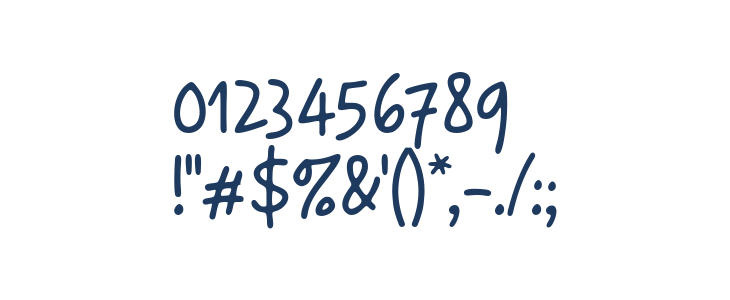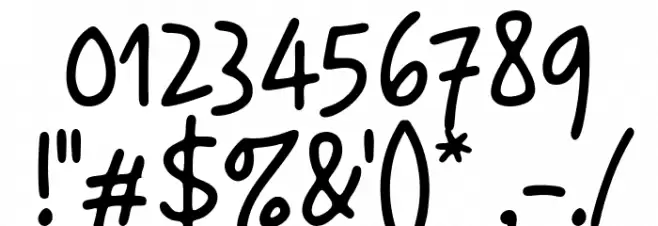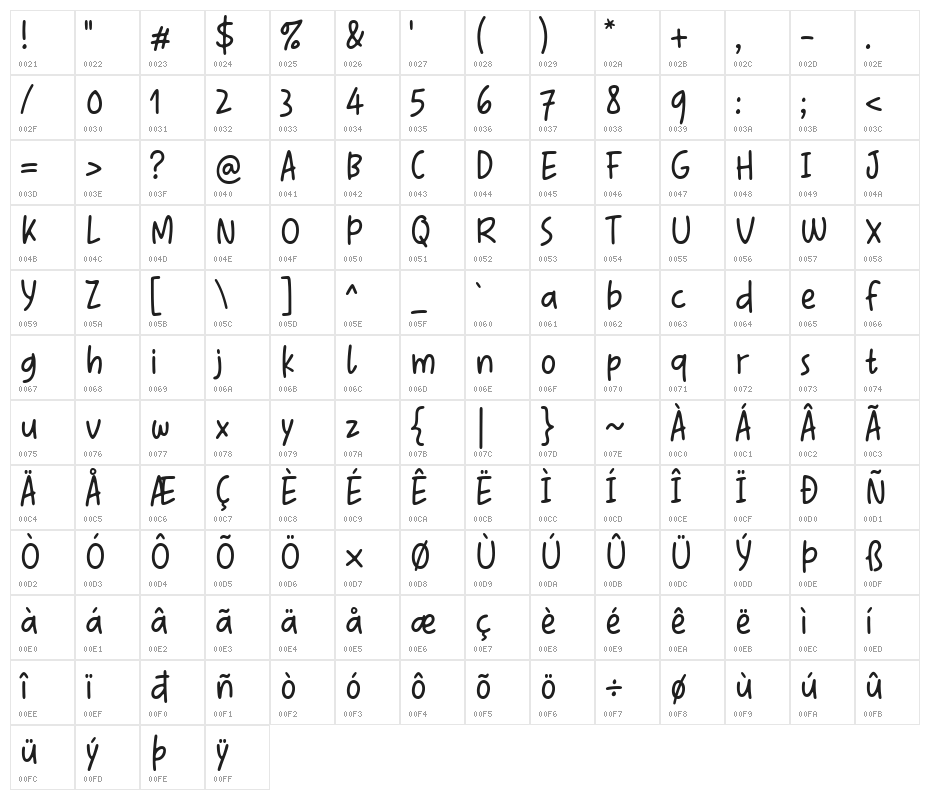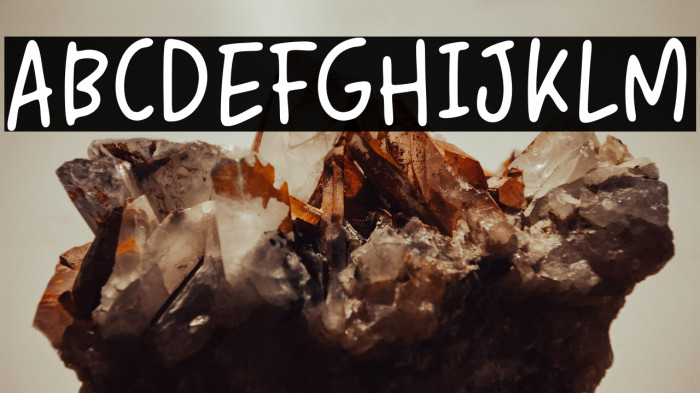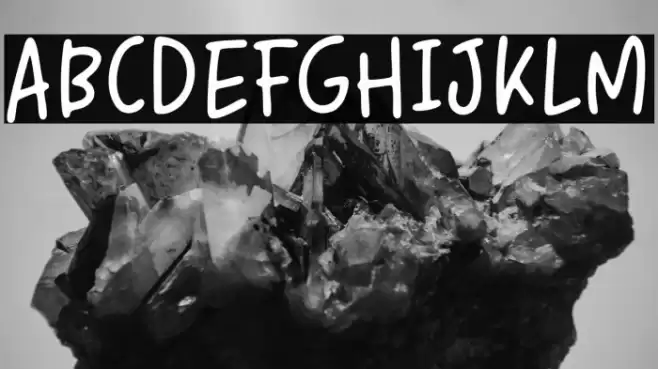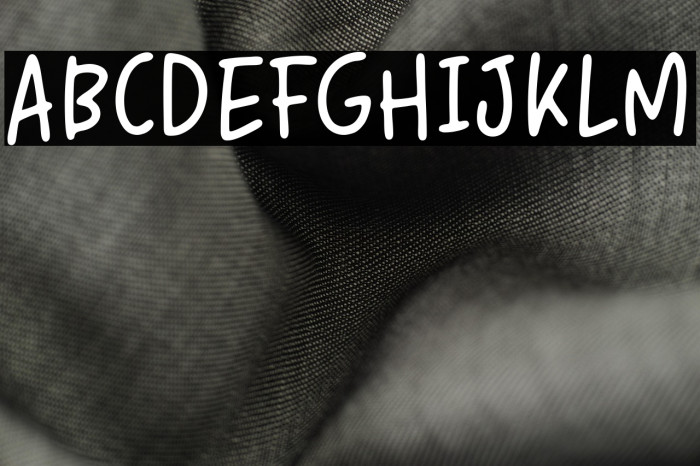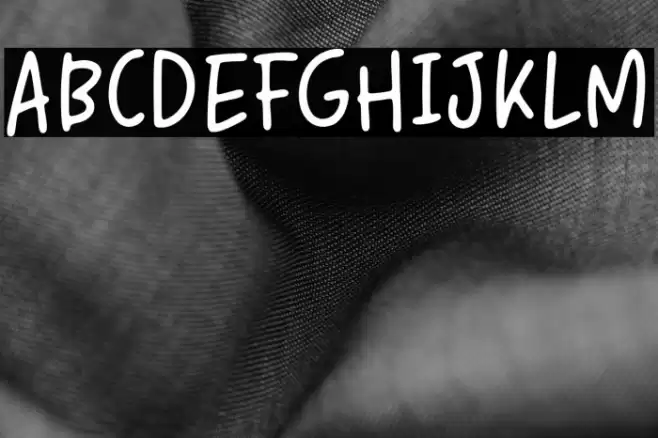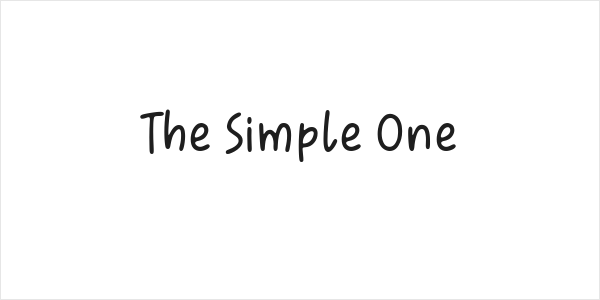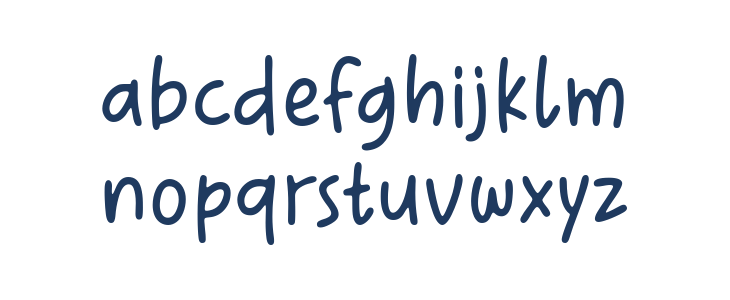
The Simple One Font
The Simple One Description
This font exudes a playful and casual handwritten style, characterized by its smooth, rounded edges and slightly irregular letterforms that mimic natural handwriting. The uppercase and lowercase letters maintain a consistent flow, with a slight tilt that adds to its informal charm. The numerals and special characters are crafted with the same whimsical touch, ensuring a cohesive look across all characters. This font is perfect for projects that require a personal, friendly touch, such as greeting cards, invitations, or children's book illustrations. Its legibility and approachable style make it versatile for both digital and print media.